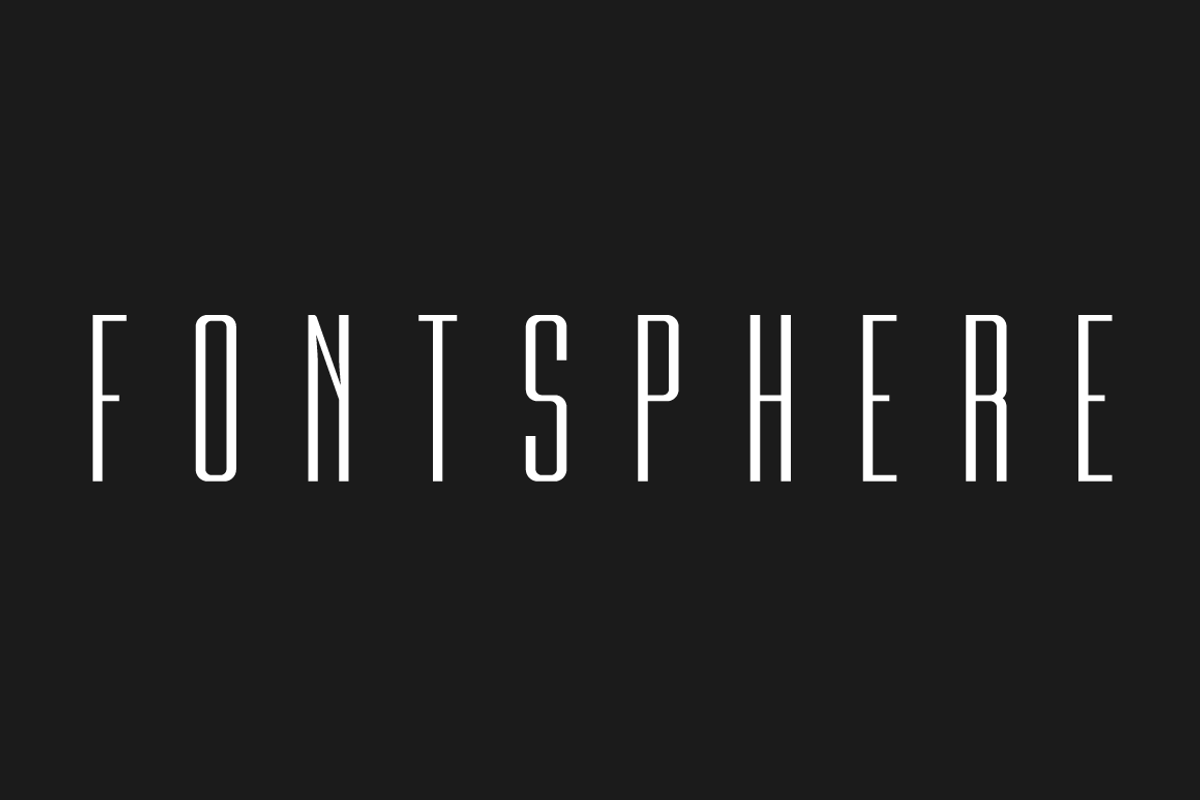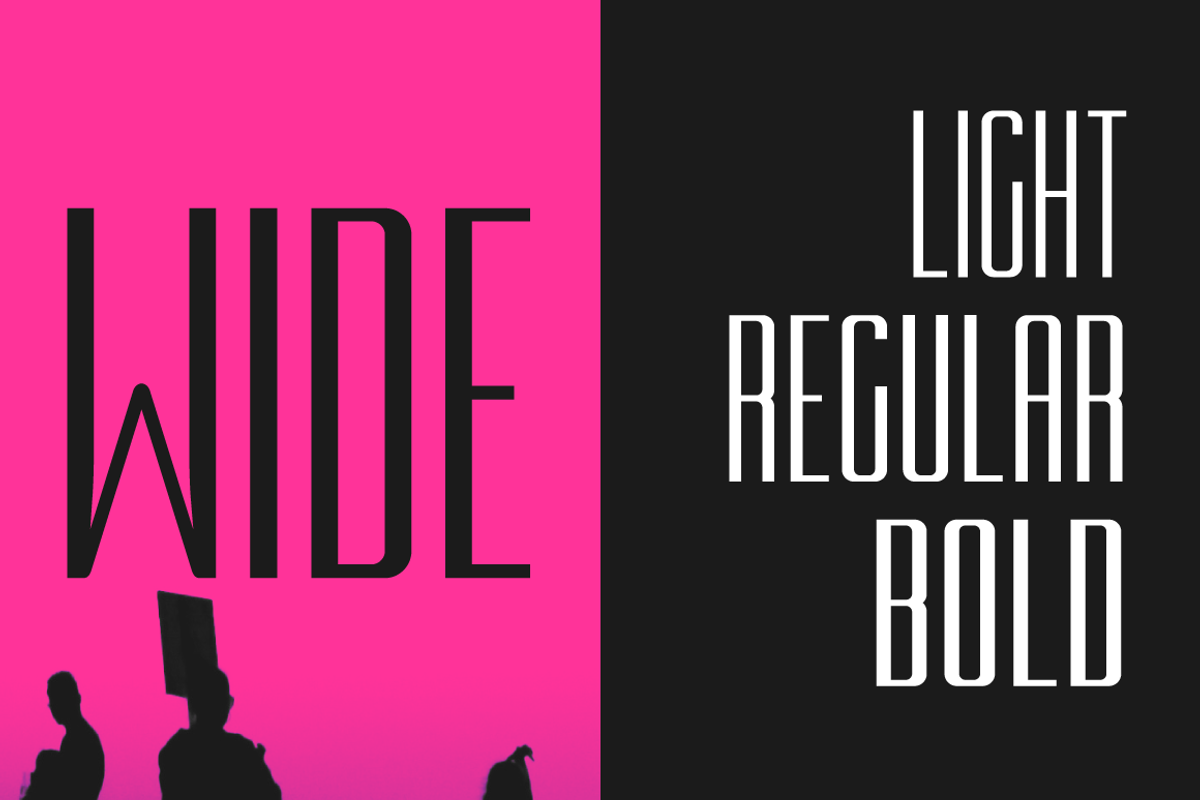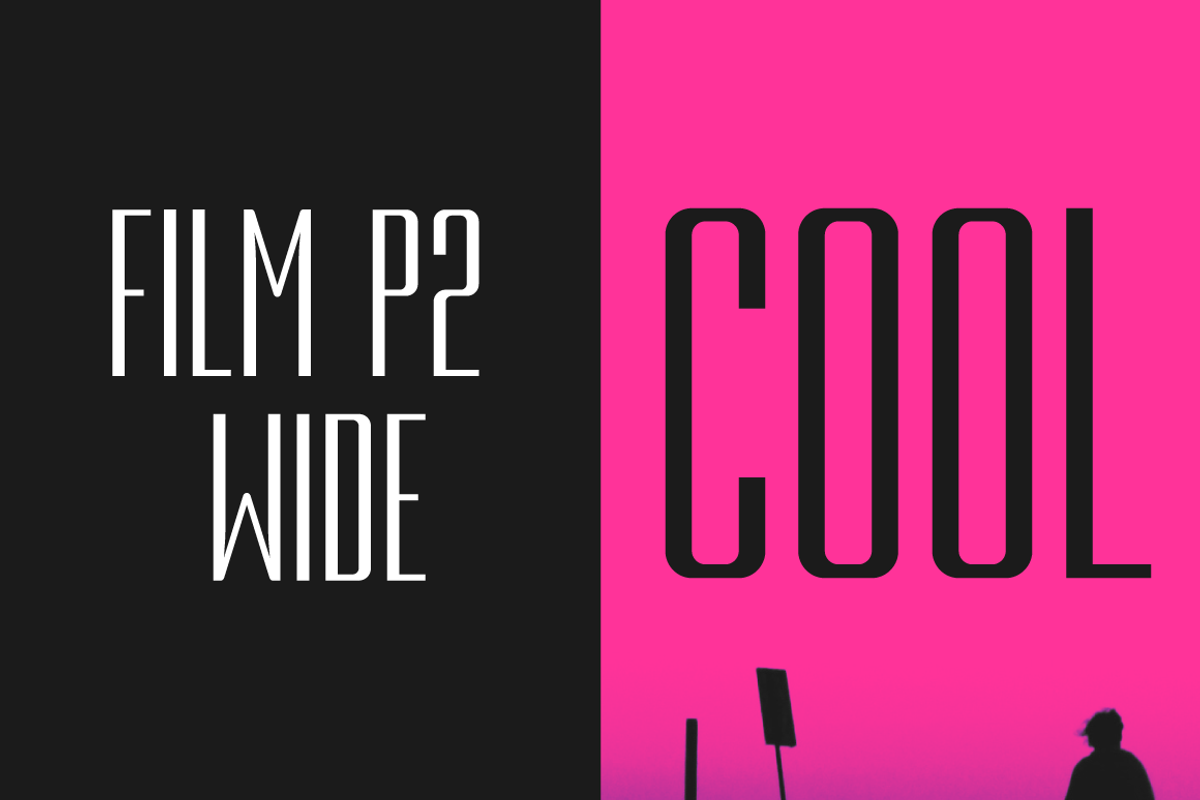
Film P2 Wide
Film P2 is an Ultra Condensed sans serif display typeface designed by Bartosz Panek.
The entire Film P2 family offers many creative possibilities in graphic design, branding, printing and website design. Each font include multilingual support, numerals and a large range of special characters.